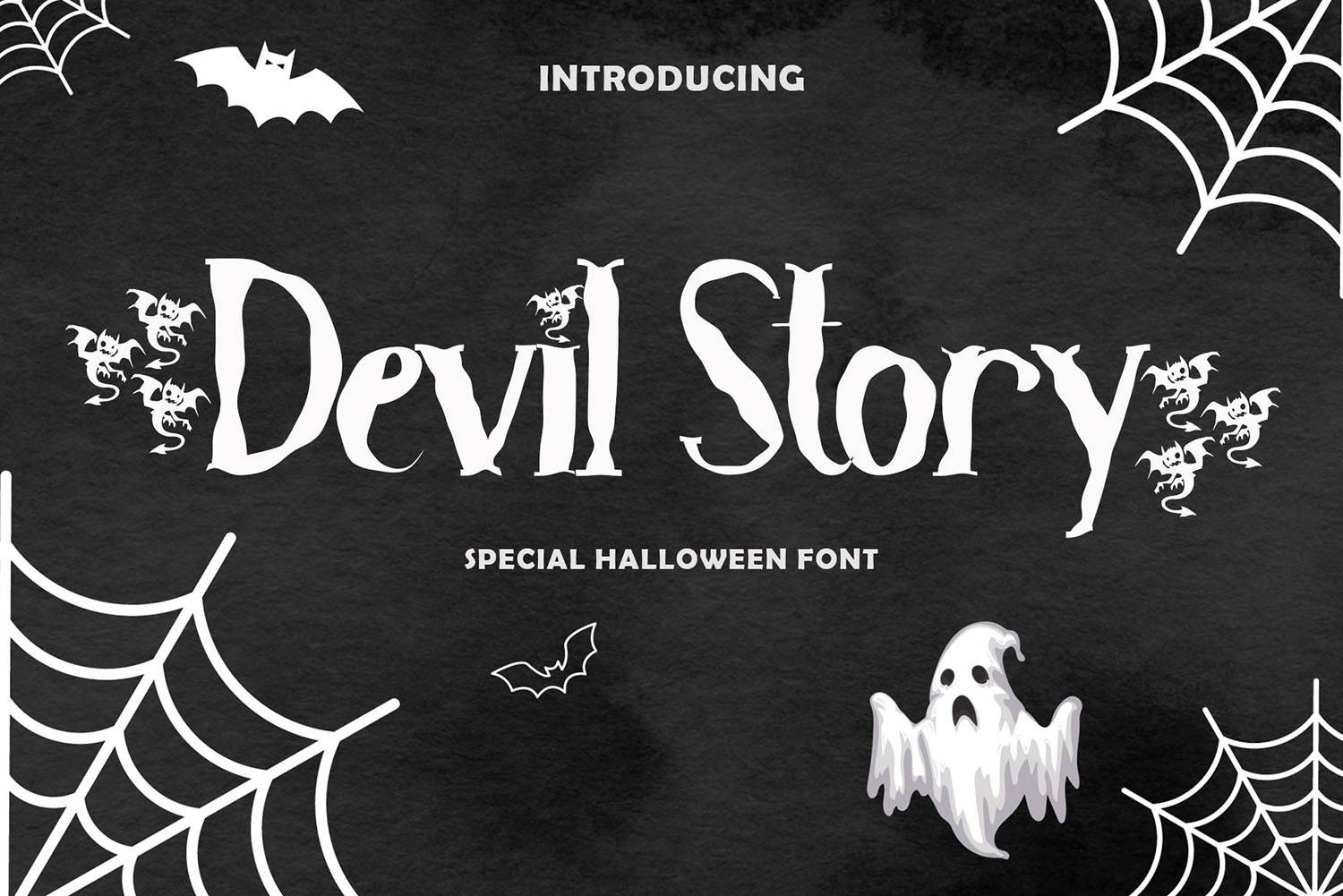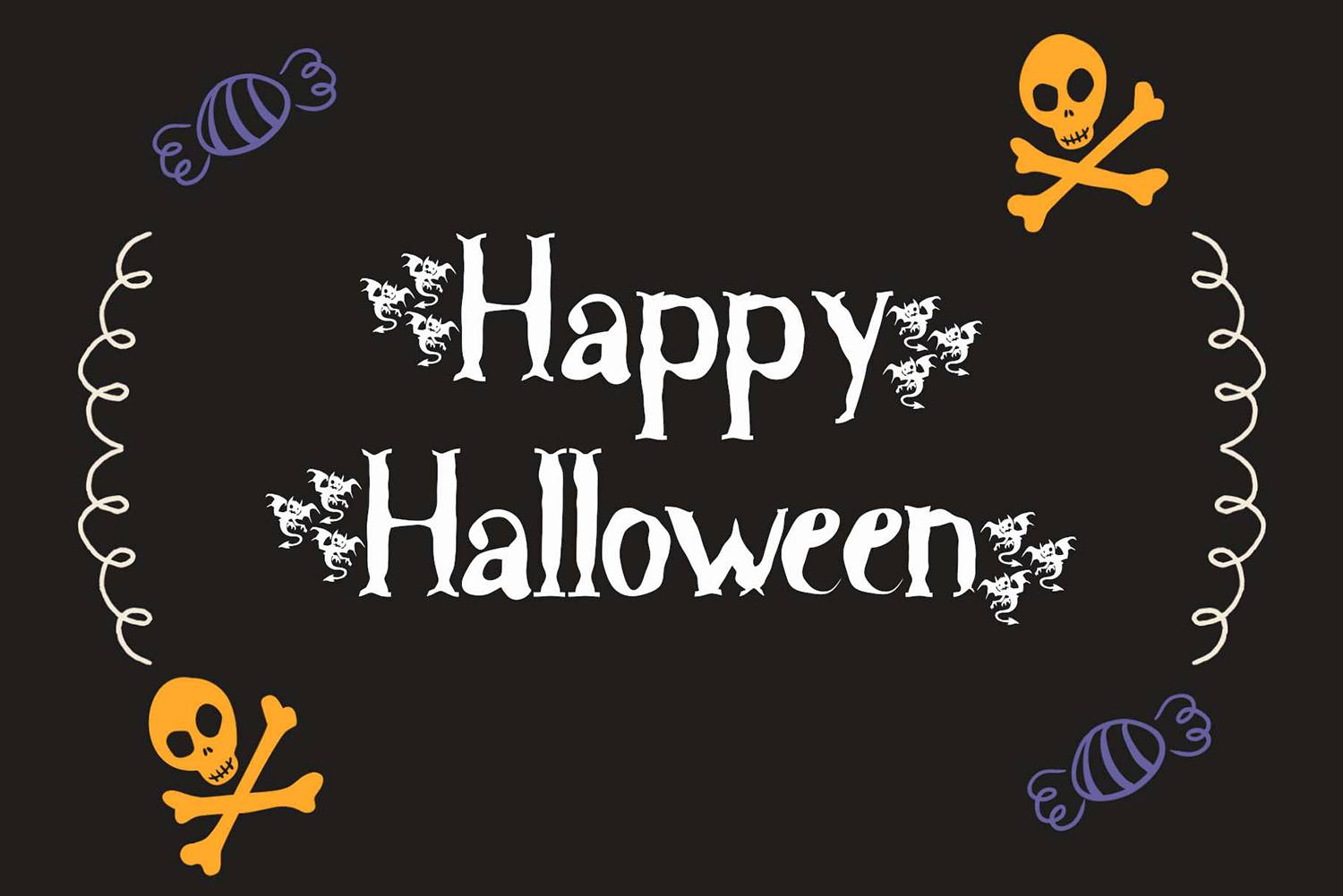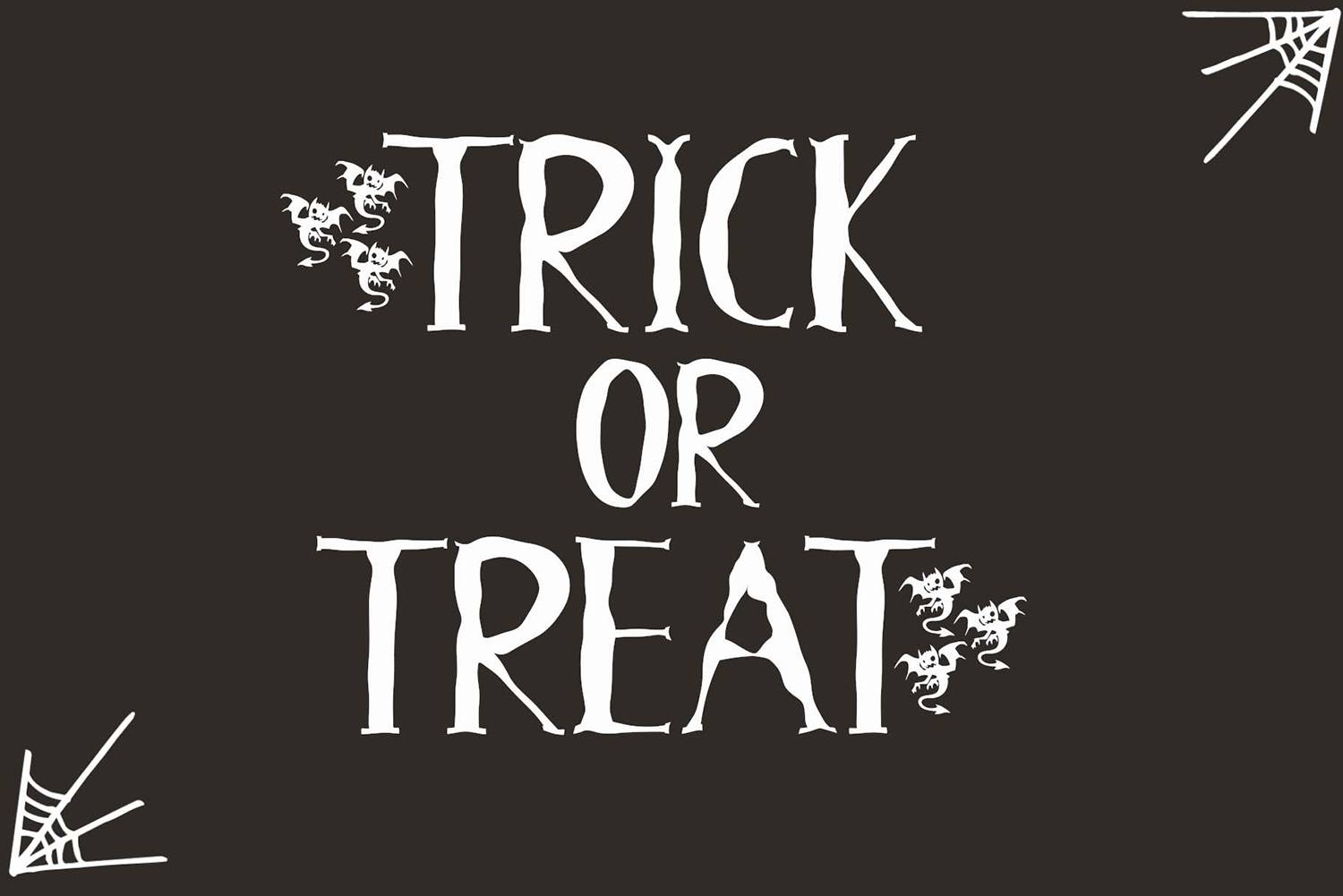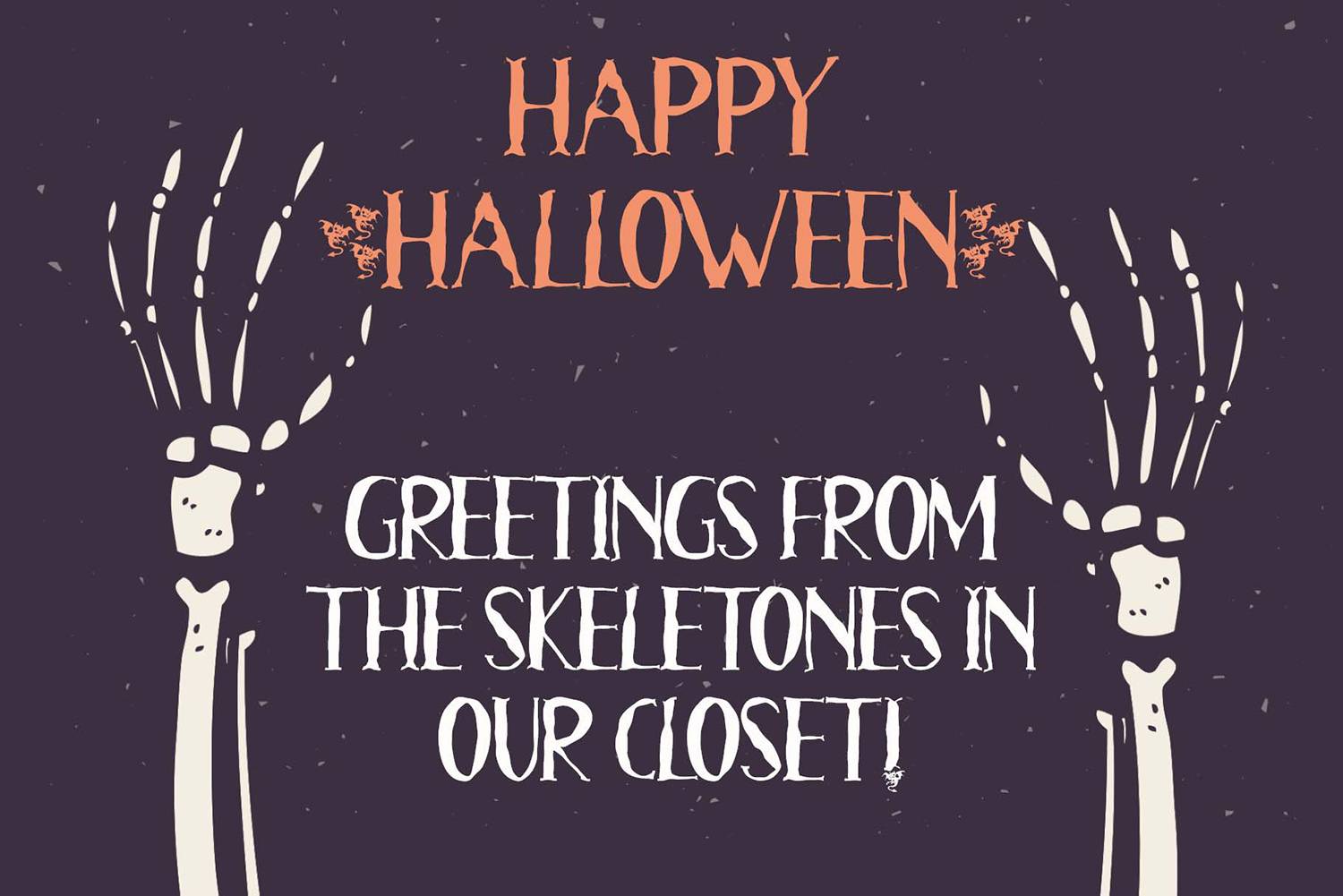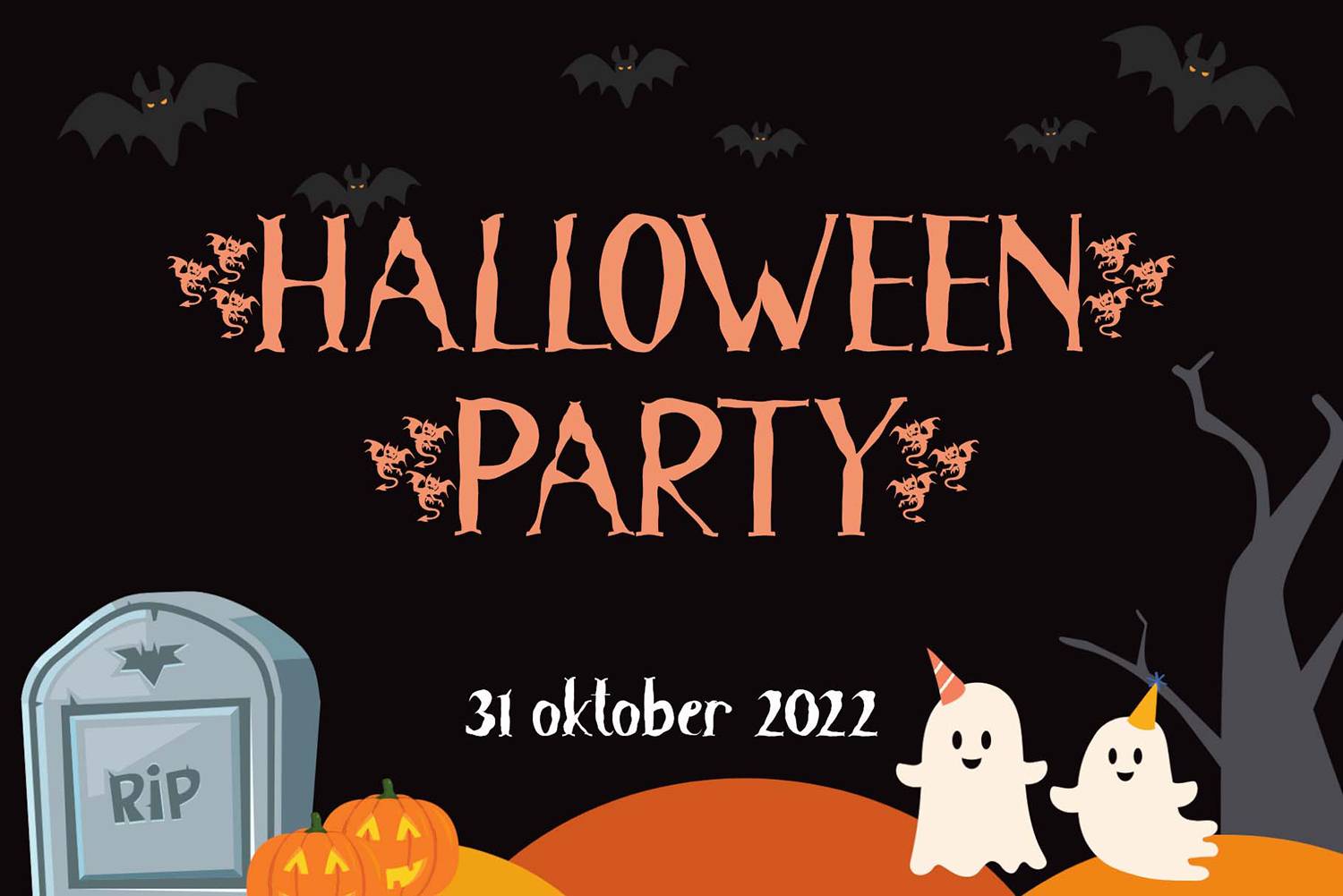
Devil Story is a decorative serif font with a spooky, hand-crafted feel, characterized by its irregular, sharp strokes and subtle distressing that evoke a dark, eerie atmosphere. Its narrow width and medium x-height make it eye-catching, perfect for horror-themed designs, Halloween projects, or any creative work seeking a mysterious and edgy vibe. This font works well for headlines, posters, and branding where a bold, dramatic statement is needed.
| Font family | Devil Story Font |
| Release date | 2022-08-27 |
| Designer | Yoga Letter 2022 (Isroni Yoga Prasetya) |